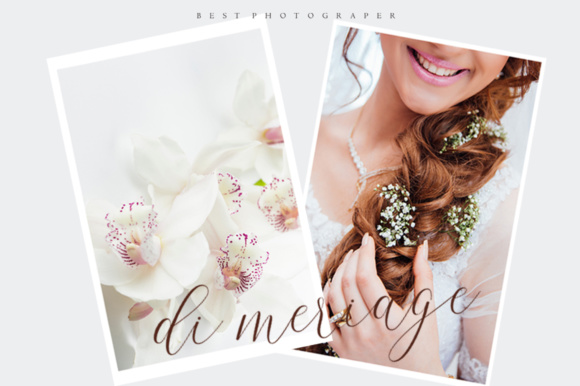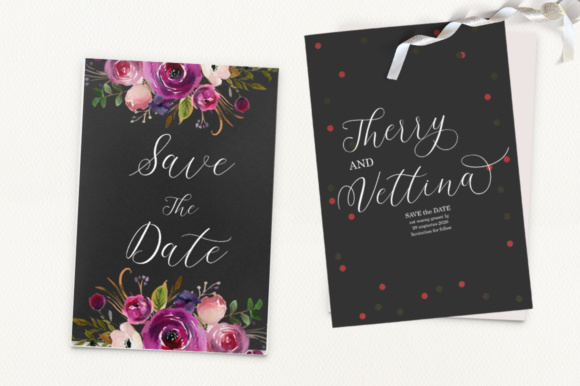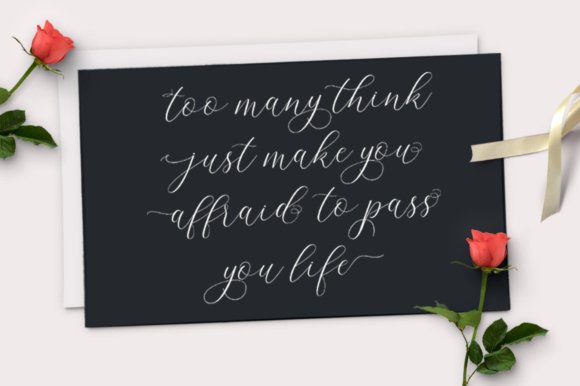
Introduction to Lindage Font
As you sit in front of your computer, staring at a blank canvas, you can almost hear the whisper of your creative project begging for attention. It’s that moment when the blank page taunts you, daring you to bring your vision to life. And what better way to do so than with the perfect font?
Enter the Lindage Font, a stunning handwritten script font that pays homage to the classic roots of formal script calligraphy. With its elegant and refined appeal, this font is a game-changer for any designer looking to elevate their creative project to the next level. Whether you’re working on a high-quality logo, a beautiful wedding invitation, or a stunning design resource, Lindage Font is the perfect choice.
Key Features of Lindage Font
- High-quality design resource for creative projects, suitable for various applications including logos, branding, and typography.
- Transparent background, allowing for easy integration with any design element or background.
- Available in 5 font styles, each with a unique and elegant design, making it perfect for high-end creative projects.
- Designed with a clean and modern aesthetic, the Lindage Font is ideal for use in digital and print media, including websites, magazines, and business cards.
Honest Review: Lindage Font
I recently stumbled upon the Lindage Font, a beautiful and versatile typeface that has quickly become a staple in my creative project workflow. One of the standout features of this font is its high quality design, making it perfect for a wide range of applications.
- ✨ Beautifully crafted with a unique blend of elegance and sophistication
- ✨ Offers a transparent background, making it easy to use in both print and digital designs
- ✨ Suitable for a variety of creative projects, from branding and marketing materials to editorial content and more
However, I do have a few concerns:
- ⚠️ Limited character set, which may not be suitable for projects that require a large number of unique characters
- ⚠️ May not be as versatile as some other fonts, particularly in terms of font sizes and styles
Overall, I’m thoroughly impressed with the Lindage Font. Its high quality design and transparent background make it a valuable addition to any designer’s toolkit. While it may have some limitations, I believe it’s a great resource for designers looking for a beautiful and versatile font for their creative projects.
Tips for Getting the Most Out of Lindage Font
To get the most out of Lindage Font, consider the following tips:
- Experiment with different font sizes and styles to find the perfect combination for your design.
- Use Lindage Font in conjunction with other design elements, such as images and shapes, to create a visually appealing design.
- Take advantage of the transparent background to create custom designs and graphics.
Lindage Font is suitable for a variety of design projects, including:
- Infographic design
- Print design
Alternatives to Lindage Font
The Great Vibes Font is a high-quality, handwritten font perfect for creative projects that require a touch of elegance and sophistication. It features a transparent background, making it ideal for use on a variety of design resources. When to use: Wedding invitations, quotes, and any design where a delicate touch is required. Comparison to Lindage Font: While Great Vibes Font has a more elegant and refined feel, it lacks the edginess and boldness of Lindage Font.
The Alex Brush Font is a beautiful, cursive font ideal for designers seeking a high-quality, free download for their creative projects. It features a transparent background and is perfect for use on design resources such as logos, business cards, and invitations. When to use: Wedding invitations, certificates, and any design where a touch of elegance and sophistication is required. Comparison to Lindage Font: Alex Brush Font has a more classic and timeless feel, whereas Lindage Font has a more modern and edgy feel.